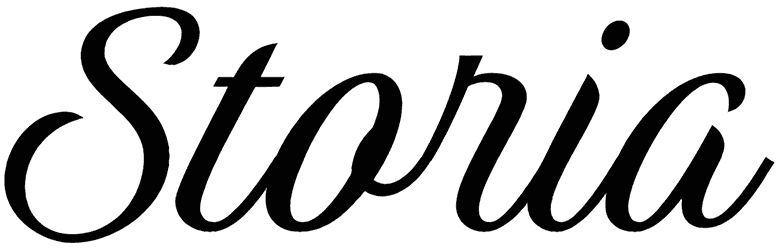
Storia Font
Expecting a cursive font to set the decorative displays on the best of terms is not a far dream. Thanks to our website, the Storia, a calligraphy font with two different styles embellished with a sweet curved body, is glad to extend your selection mode in a friendly and warm vibe.